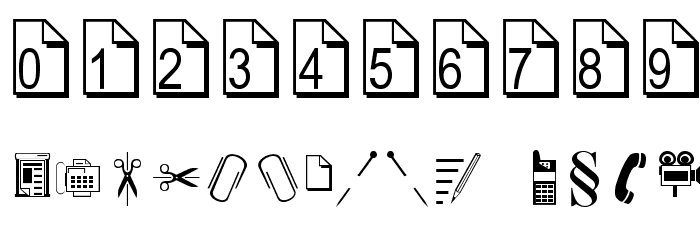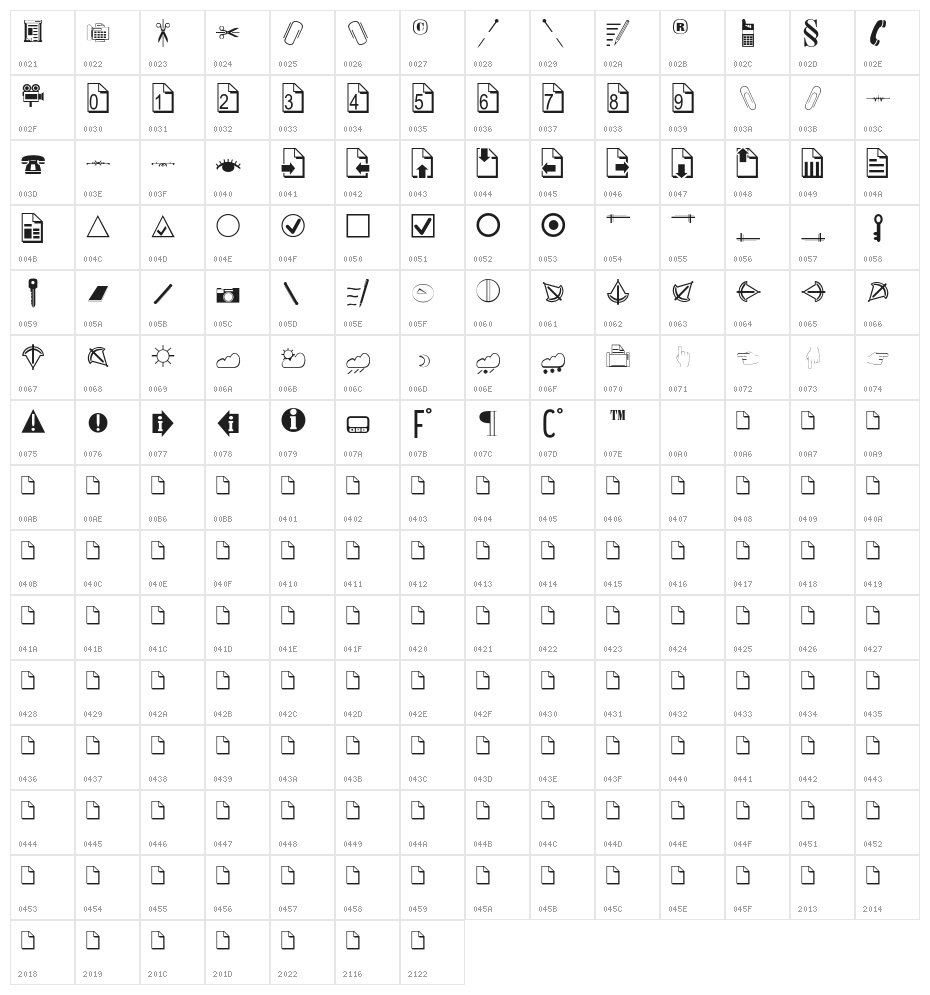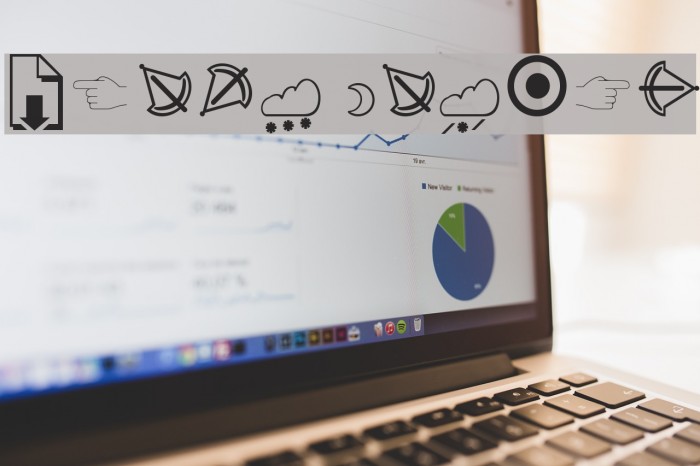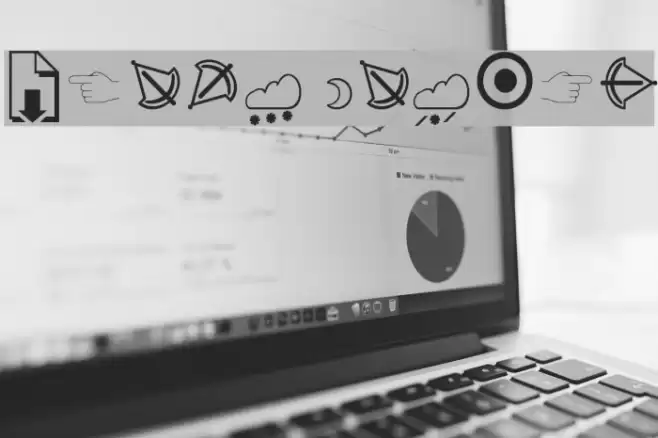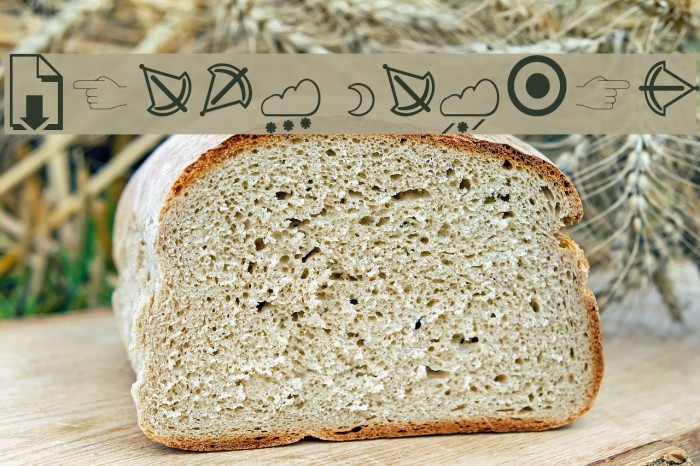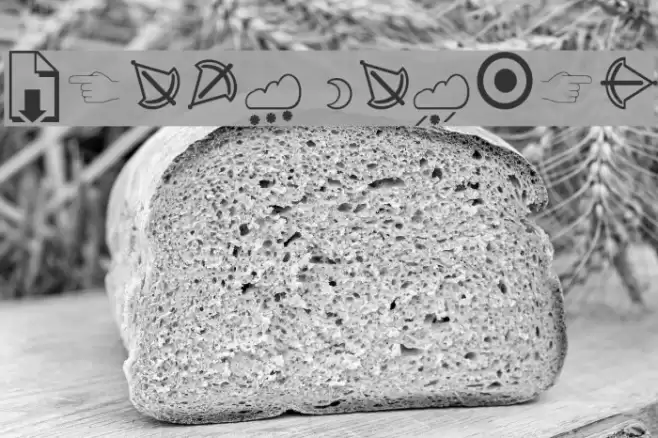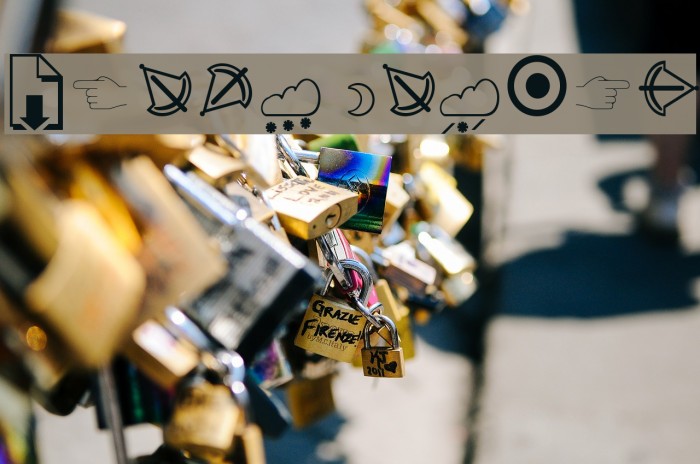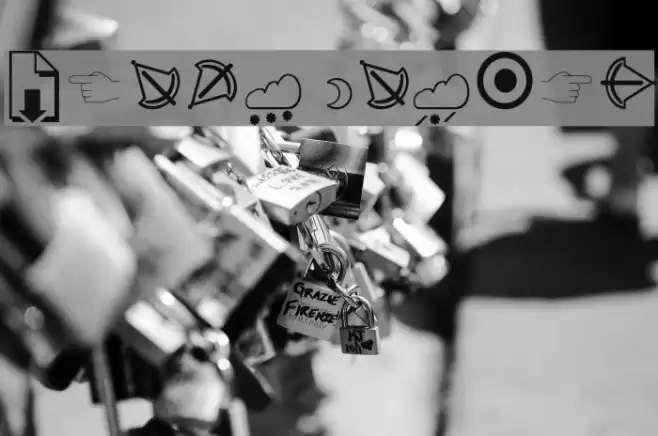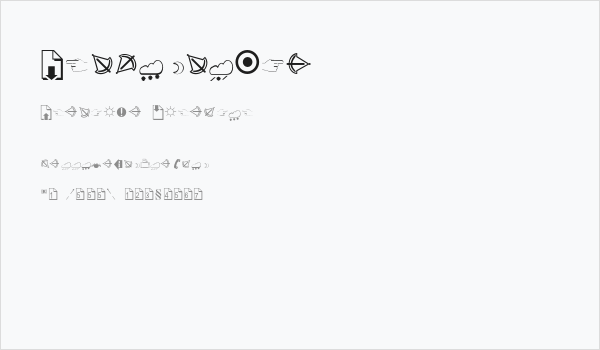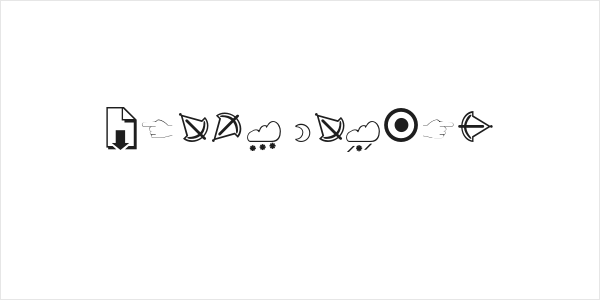
GrafomanStd Font
GrafomanStd Description
A pictogram and icon-based font featuring a variety of office, document, weather, and symbol illustrations. The glyphs are enclosed in geometric shapes such as squares, circles, and triangles, with a consistent line weight and clear, simple outlines. The icons include arrows, check marks, paper sheets, weather symbols, office tools, and communication devices, all rendered in a minimal, schematic style.
| Overall Style | Modern, Minimal, Schematic |
| Use Case | Icons, Infographics, UI elements, Signage |
| Proposed Projects | Infographics, user interface design, instructional materials, signage, office-related graphics. |